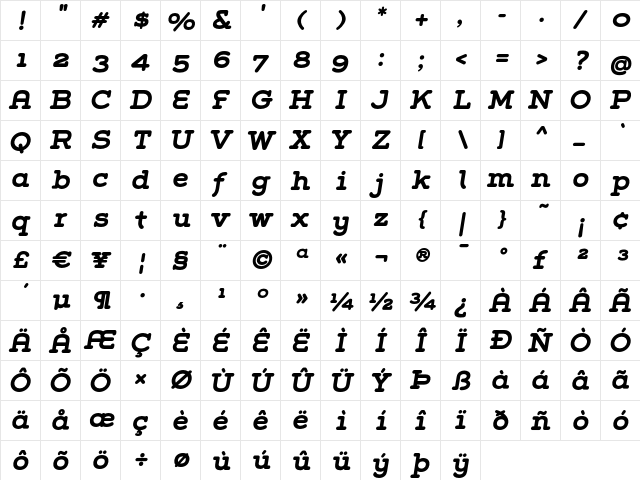
Grover Slab Bold Italic
Design Context for Grover Slab Typeface
Grover Slab combines the readability of serif typography with the visual weight of a slab construction, resulting in a typeface that feels both authoritative and approachable. Its italic angle brings a sense of urgency and motion to the letterforms. Its bold stroke weight gives it real presence on the page.
Works well in editorial design, news publishing, impactful branding, and poster typography.
Pro Tip: Try Grover Slab set tight in headlines for a classic editorial feel. Its slab serifs create strong horizontal rhythm that anchors a page layout.